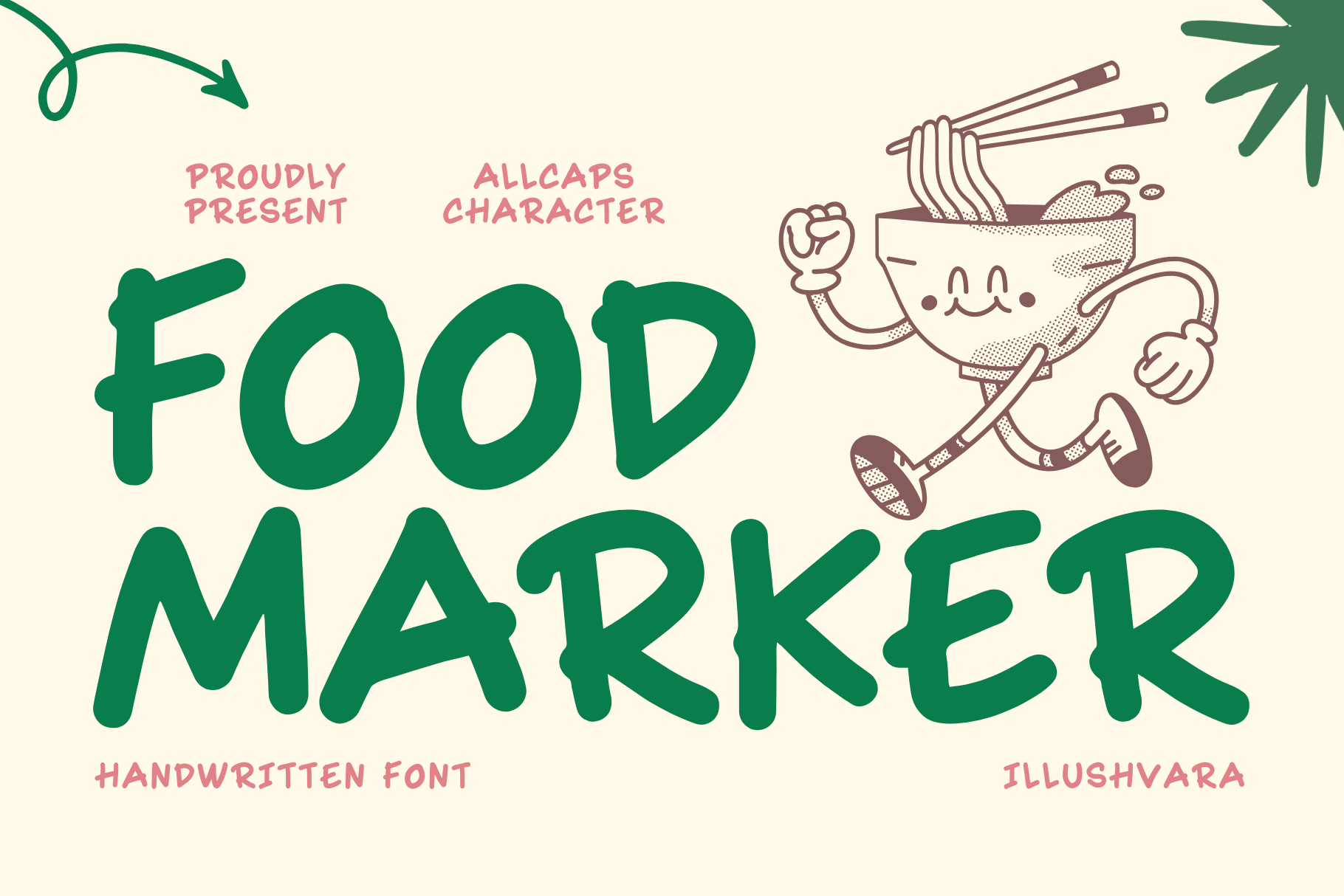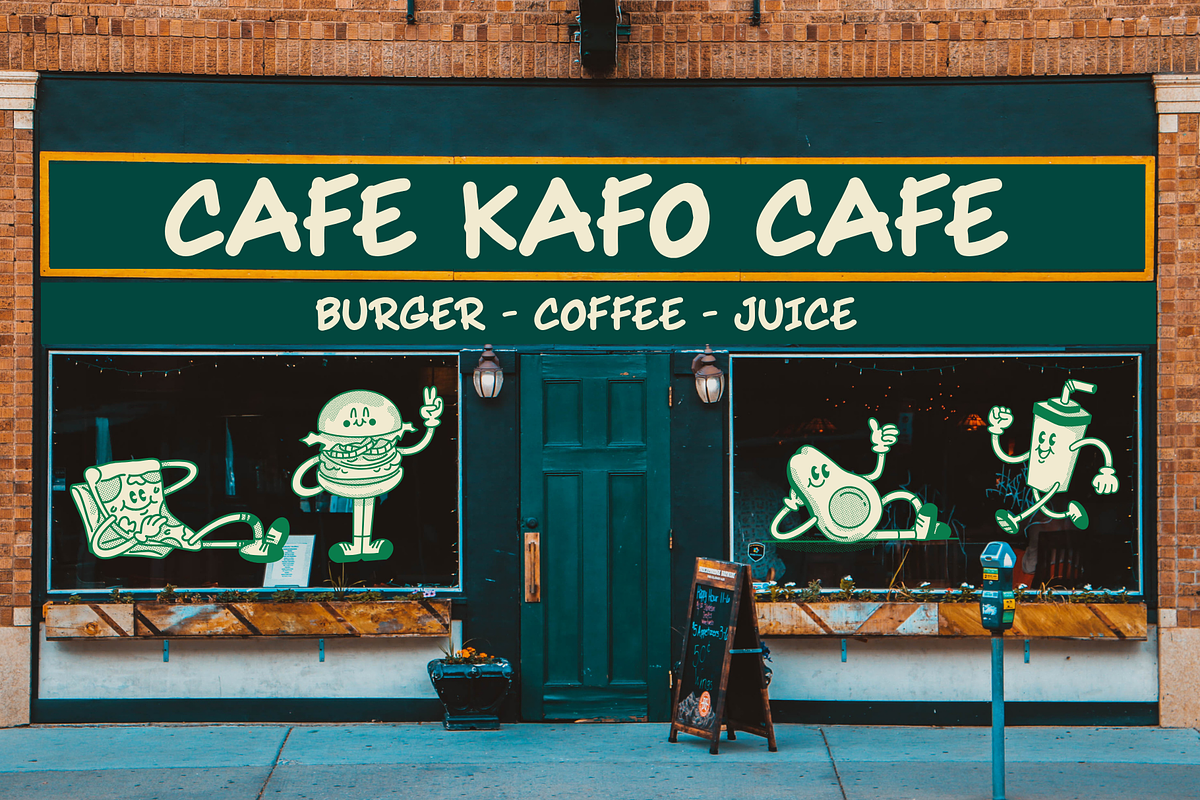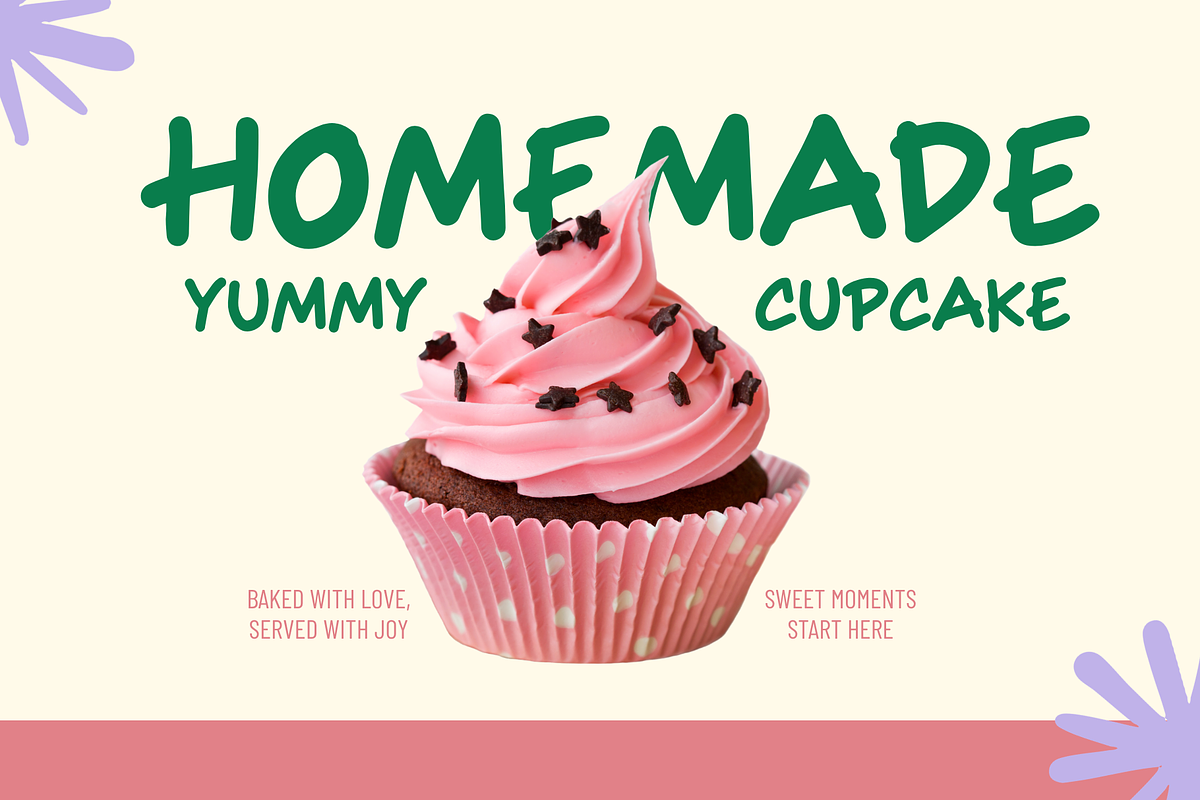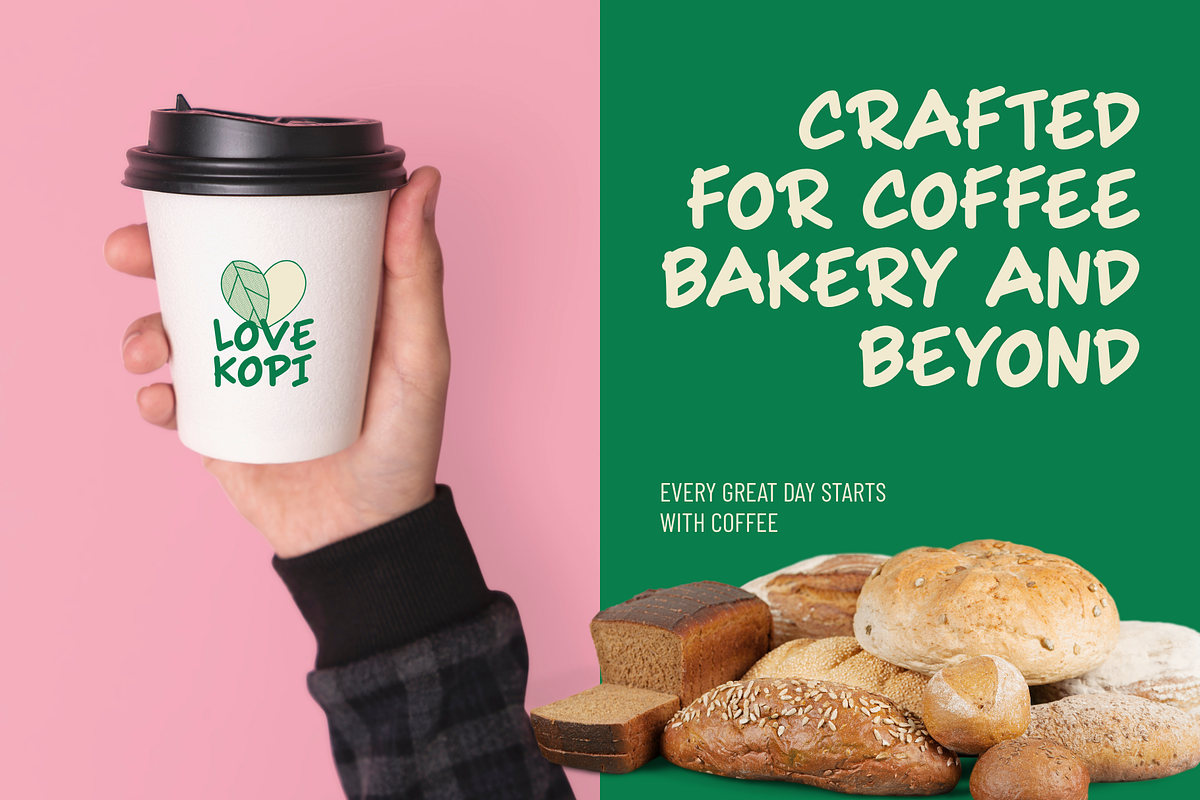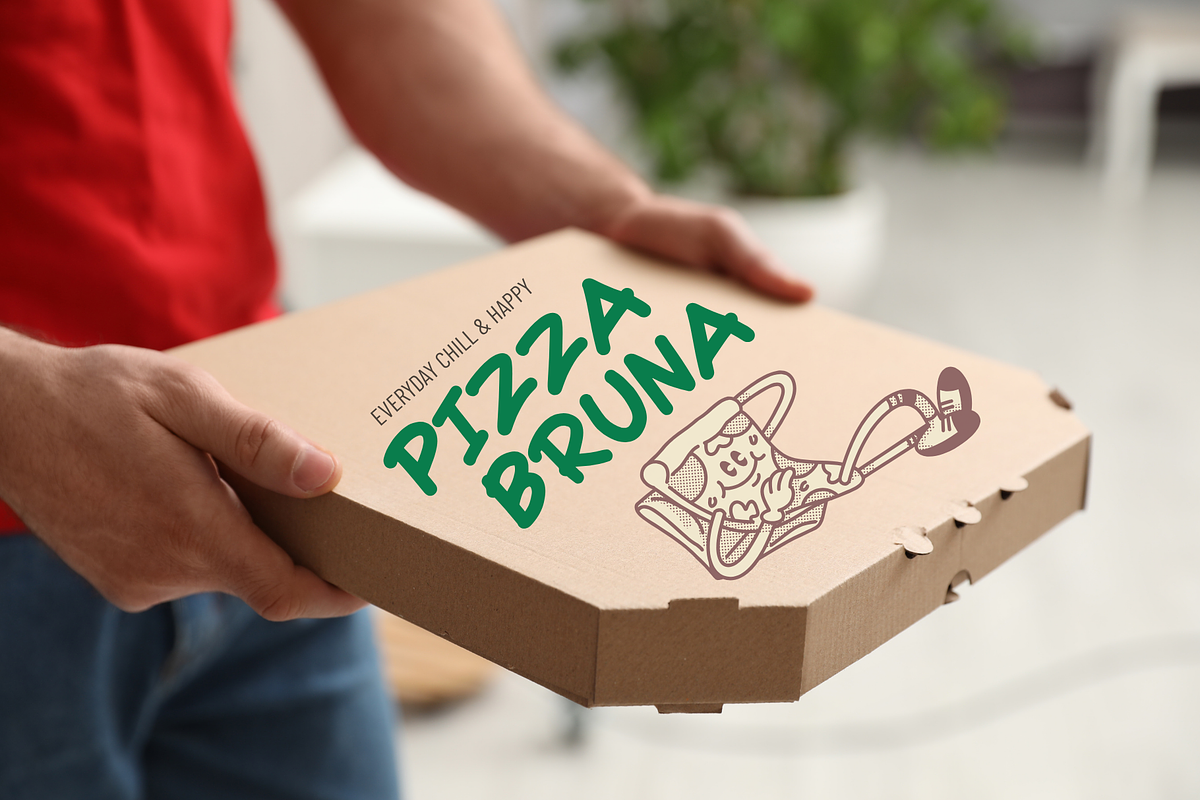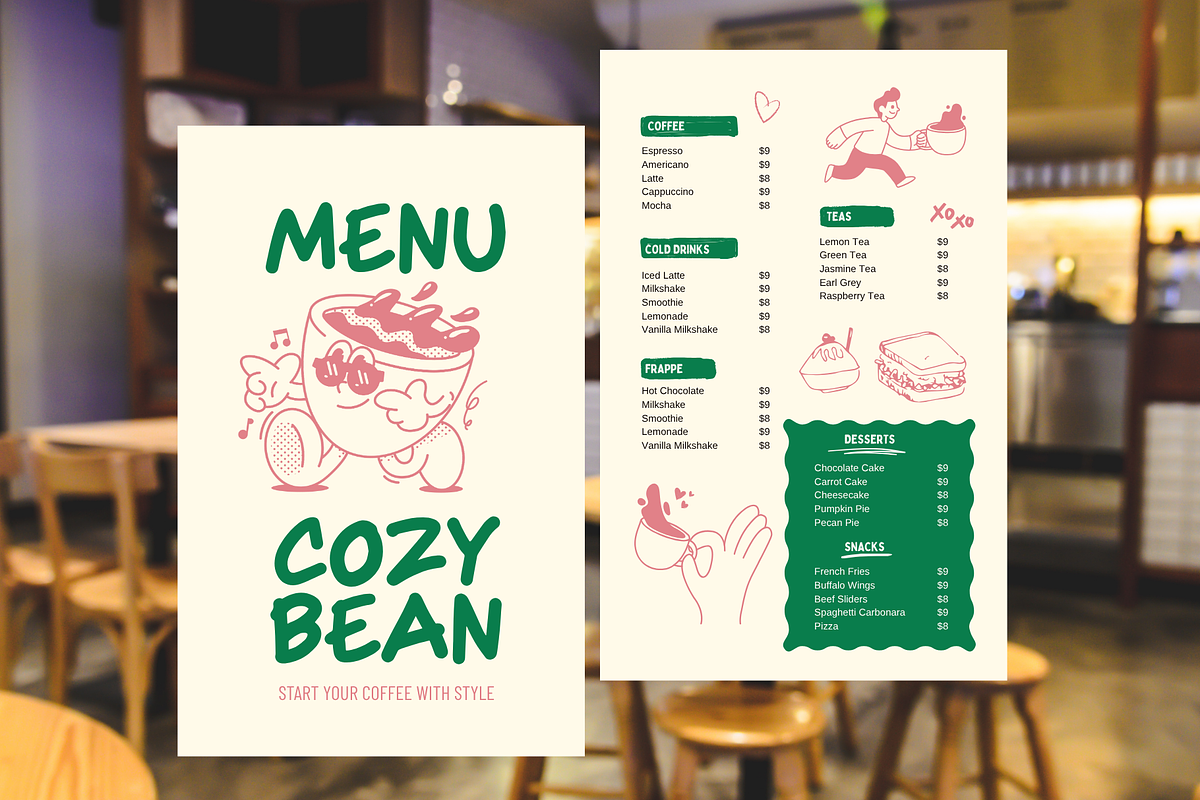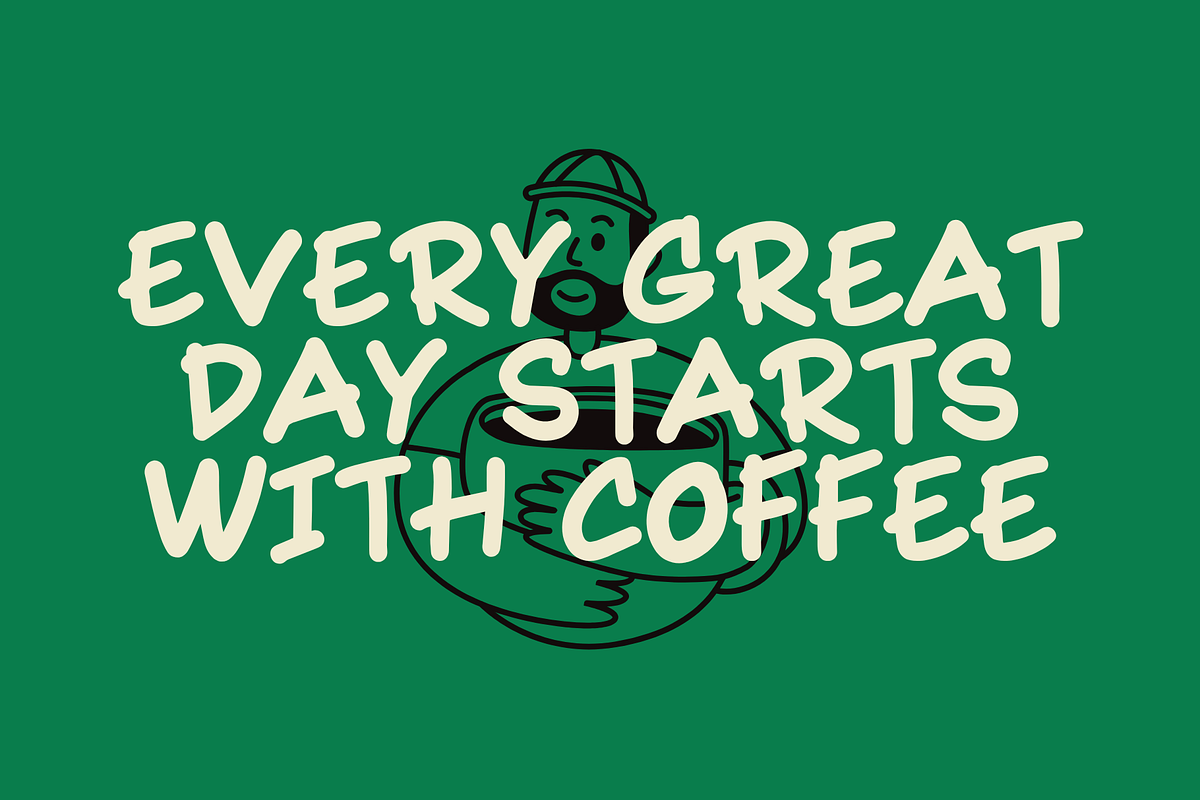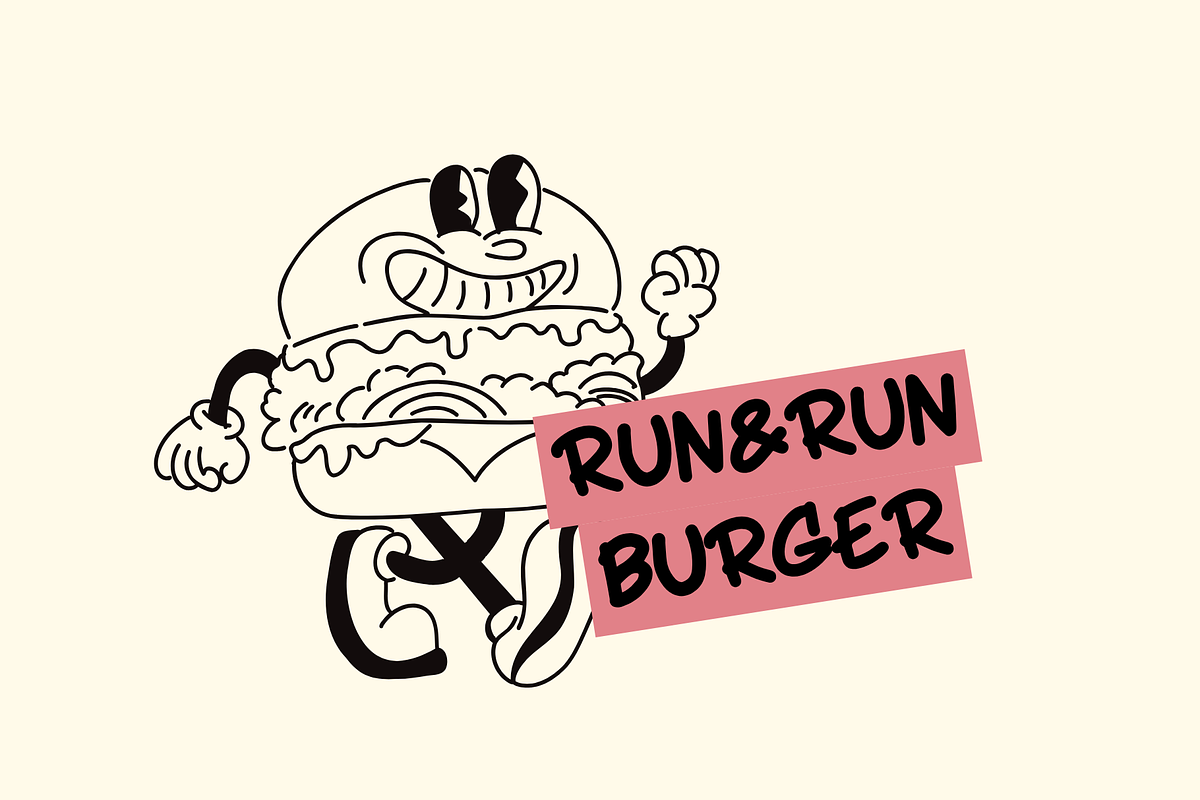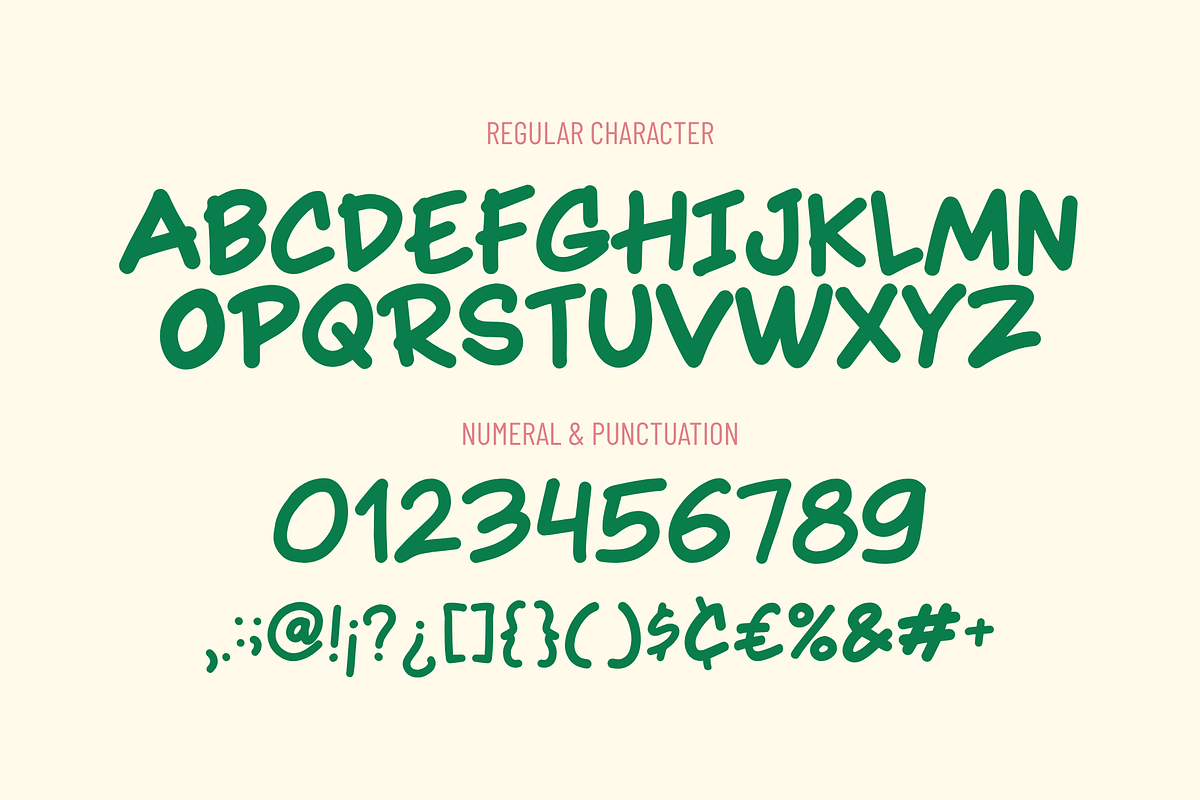
Food Marker - Handwritten Food Font
Say hello to Food Marker
Food Marker is a fun and playful handwritten font inspired by food, cafés, bakeries, and casual dining. Featuring bold all-caps characters with a natural marker style, this font brings warmth and personality to menus, food packaging, restaurant logos, coffee shop branding, posters, social media, and more. Its friendly handcrafted look makes every design feel fresh, inviting, and delicious. Perfect for creating branding with a tasty, cheerful vibe.